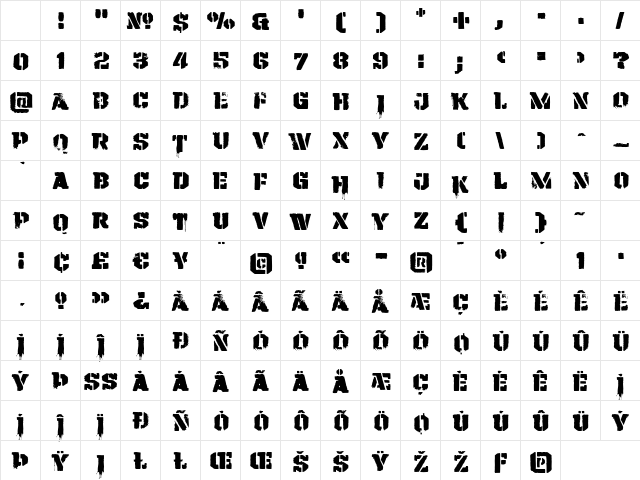
Payload Spraycan Regular Free Font
Payload Spraycan Regular
Design Context for Payload Spraycan
Payload Spraycan is a composed and adaptable typeface that performs quietly and consistently across a wide range of design contexts.